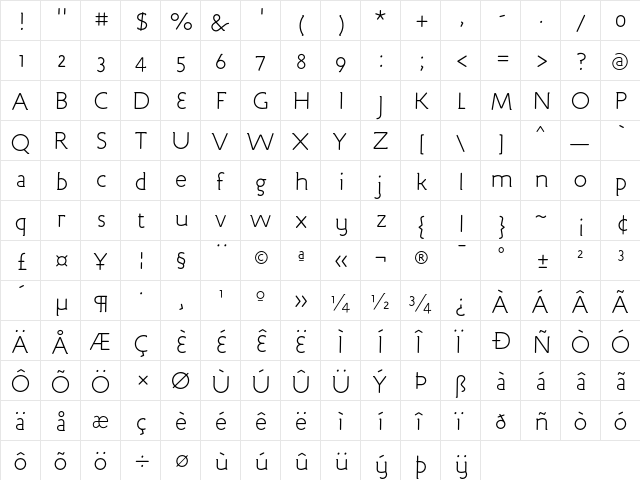
Engine Light
Design Context for Engine Typeface
Engine offers clean, dependable letterforms without strong stylistic allegiance, making it a practical choice for designers who need flexibility. The delicate stroke weight brings airiness and refinement to layouts.